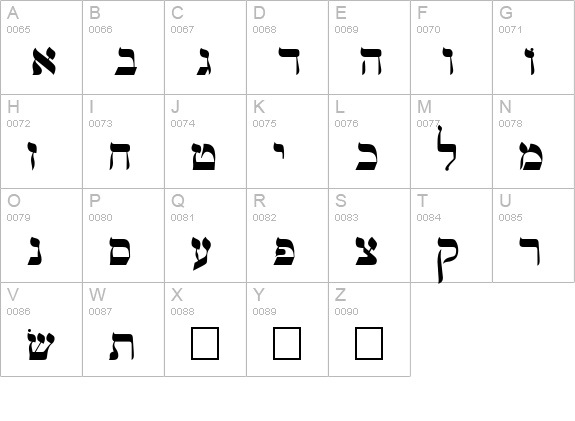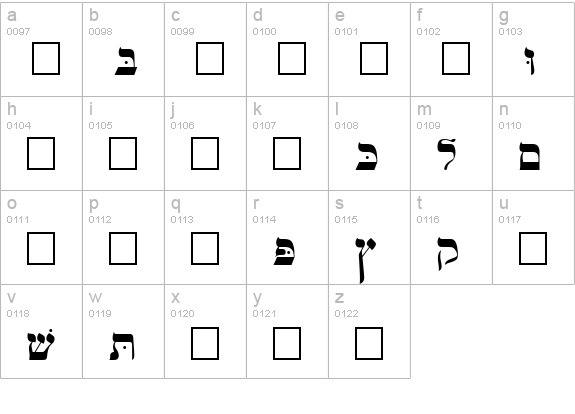
Jiddish Font Details
Introducing the exquisite Jiddish font, a beautiful display of traditional elegance and timeless charm. With its intricate details and classic styling, the Jiddish font is perfect for adding a touch of sophistication to your design projects. Its distinctive letterforms and ornate flourishes make it a standout choice for invitations, logos, and branding materials. What sets the Jiddish font apart is not only its stunning aesthetics but also its accessibility. This premium font is available for free download exclusively at FontsMarket.com. Now, you can effortlessly enhance your creations with the allure of the Jiddish font without any cost involved. Download the Jiddish font today and elevate your designs with its captivating beauty and refined appeal. Let this enchanting typeface bring a touch of old-world charm to your modern projects, making them truly unforgettable.